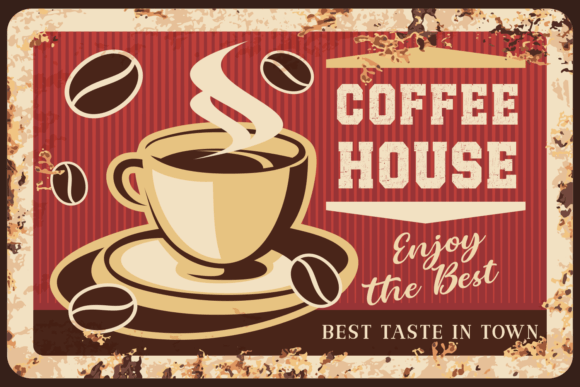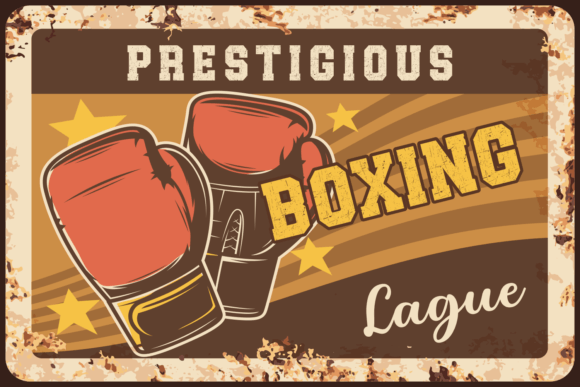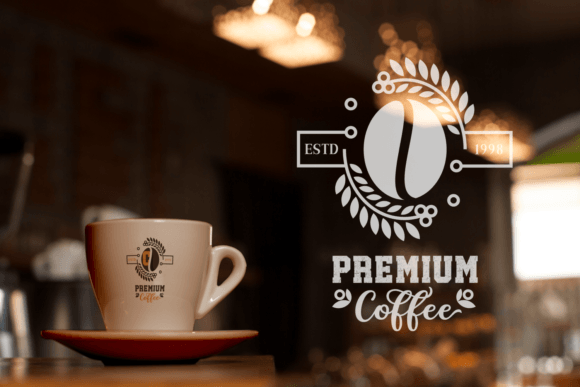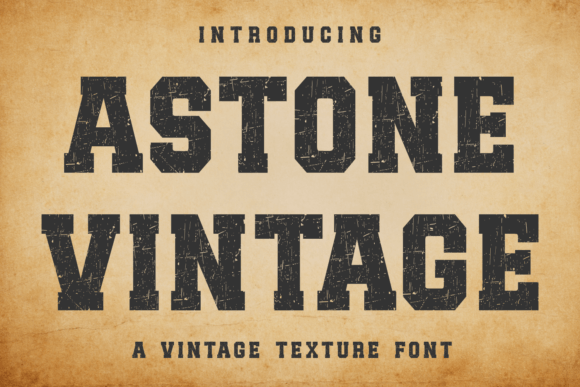
Astone Vintage
About Astone Vintage
Astone Vintage is a vintage and grunge slab serif font that will add a touch of nostalgia to any design. With its rough edges and worn-out appearance, this font is perfect for creating designs with a vintage or grunge aesthetic. Astone Vintage features bold and strong lettering that will make your designs stand out and give them a unique character.